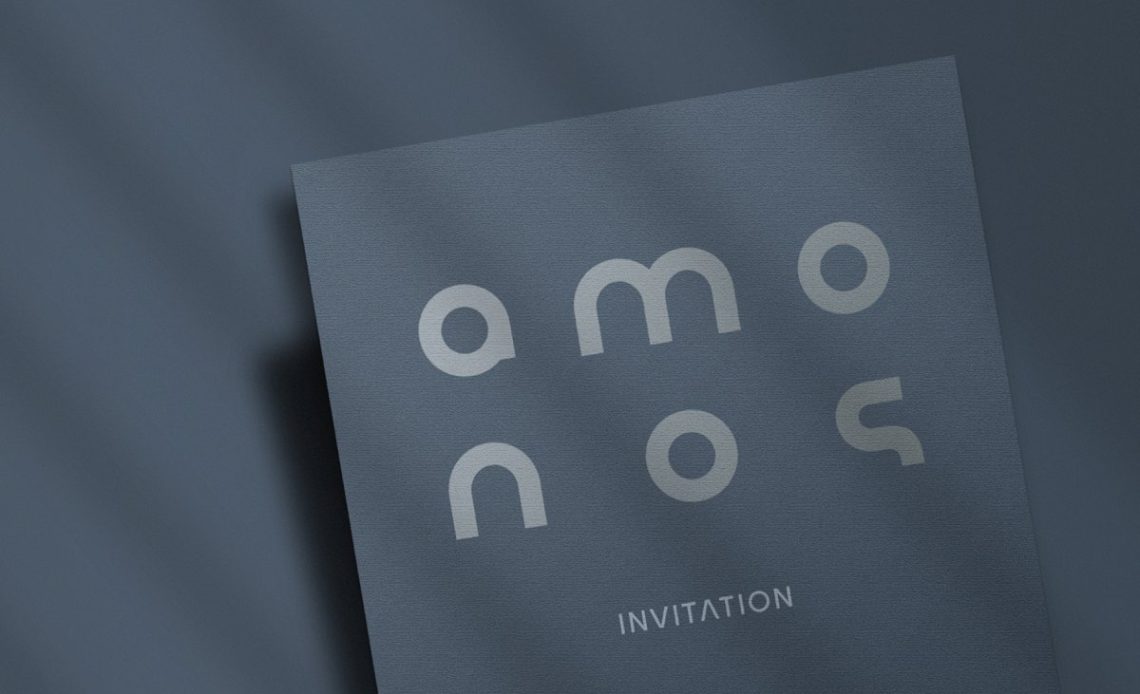
Looking for a modern and stylish font for your resume or creative typography project? Look no further than Amonos Display Font Family, created by the talented Ryul Davidson.
This sans serif font family is designed for a modern and simple lifestyle, with sleek and stylish skeletons that range from thin to black weights. But it's not just about looks - the 18 styles in this font family also have special talents related to headings, subtitles, and logos, making it a versatile choice for all kinds of design projects.
What sets Amonos apart from other geometric fonts is its understated metaphor and sense of stability, which create a dynamic and engaging visual experience for readers. Plus, with different glyphs of oblique typefaces, you can add a delightful touch of fun to your designs.
If you're working on an editorial design project, you'll also appreciate the enclosed alphanumerics and symbols included in this font family, which make it a great choice for all kinds of print and digital media.
Overall, if you want a font that's both stylish and functional, Amonos Display Font Family is the perfect choice. With its unique style and versatile capabilities, it's sure to elevate your design work and make a lasting impression on your audience.